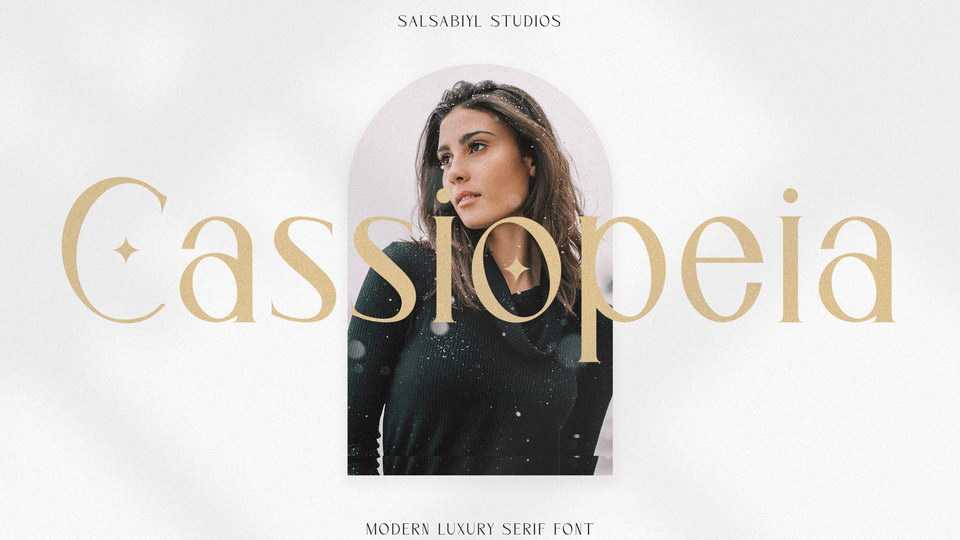
Download Cassiopeia font, a modern serif typeface with an elegant look. Cassiopeia is suitable for almost any graphic designs such as logo, branding, business cards, magazines, print, poster, photography, quotes etc.
Designer: Salsabiyl Studios